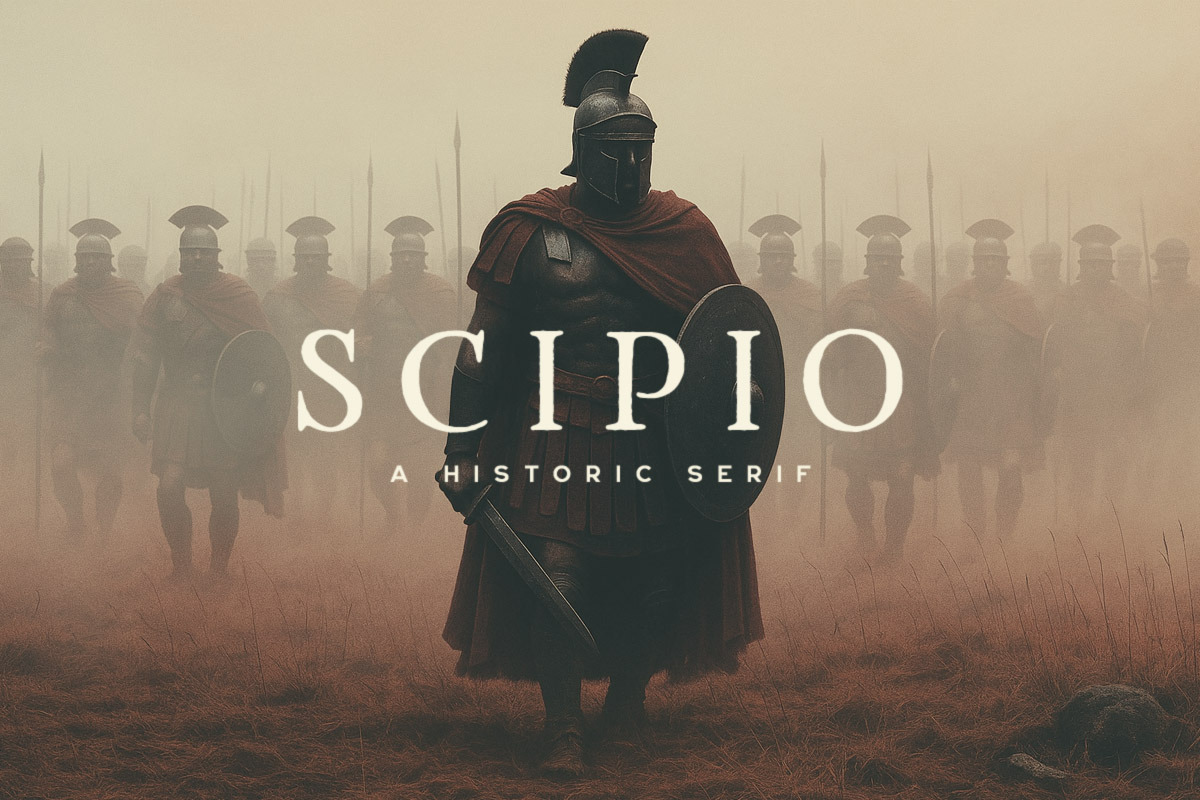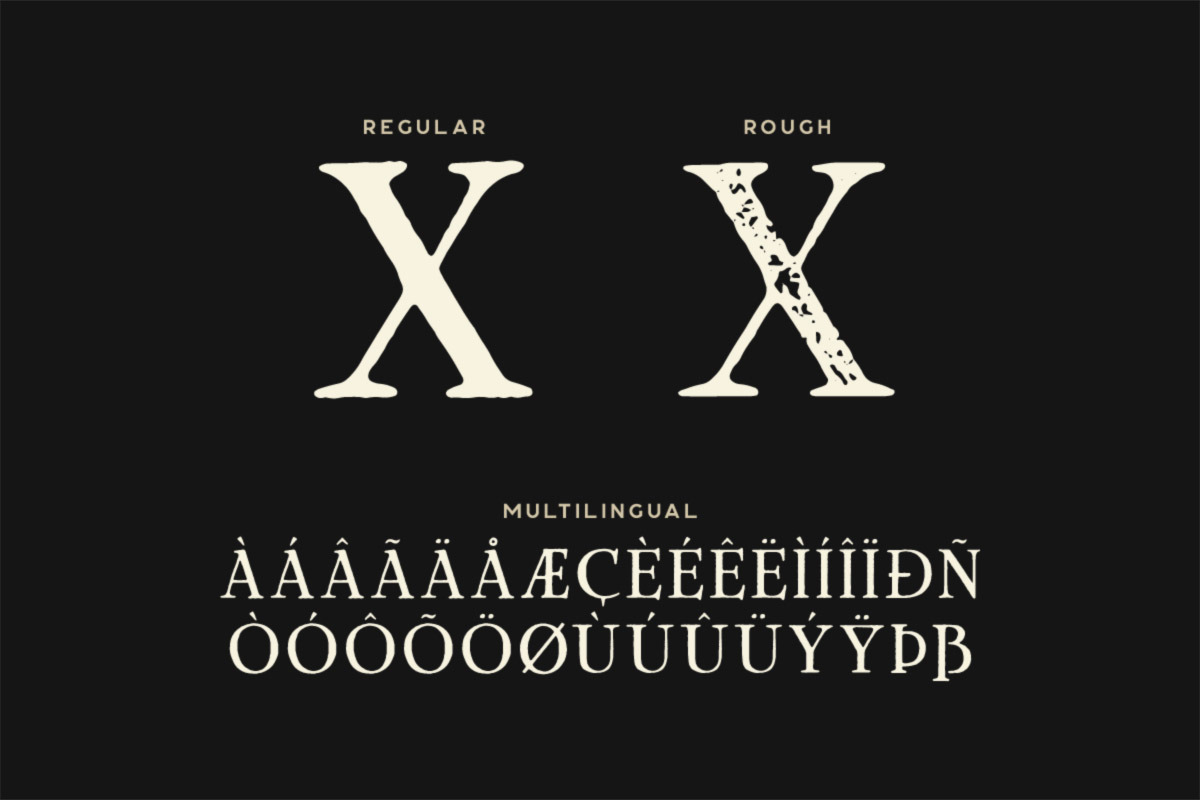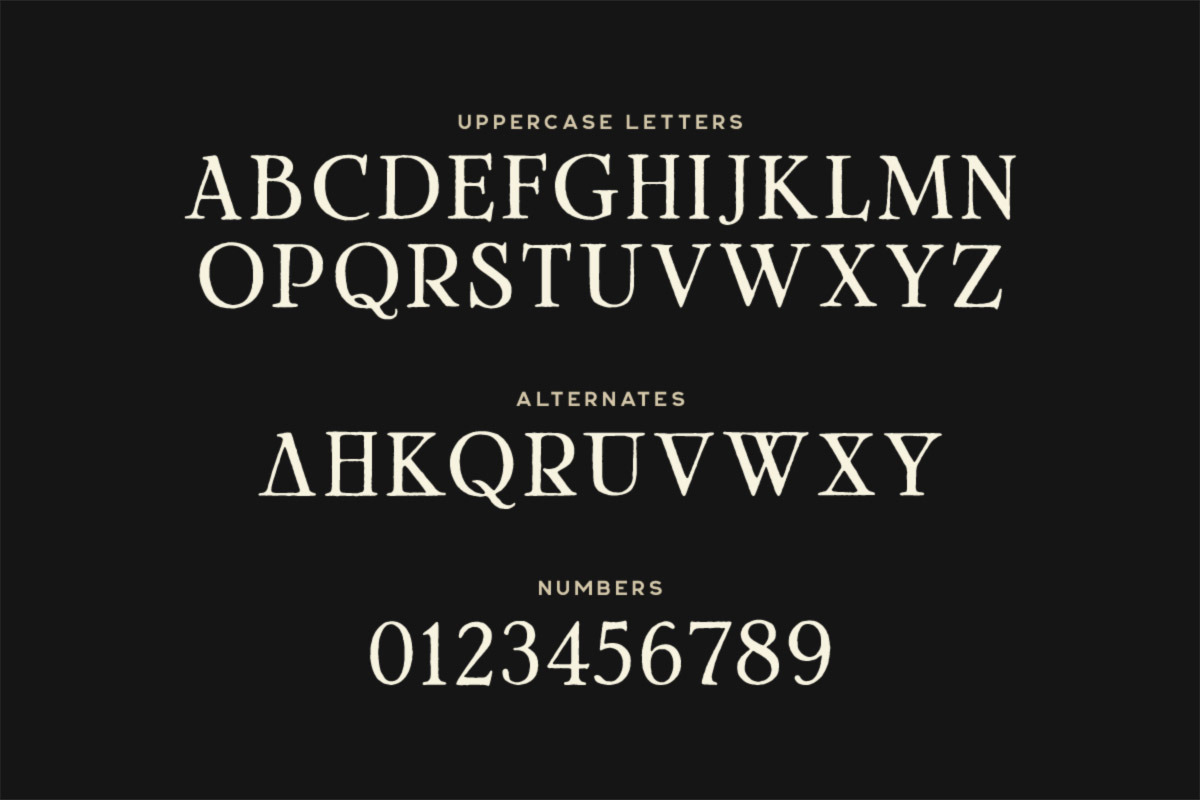
Scipio Typeface
Scipio is a Roman inspired serif display font with alternates you can toggle via Caps Lock. Also includes a rough style option for that extra withered and ancient look.